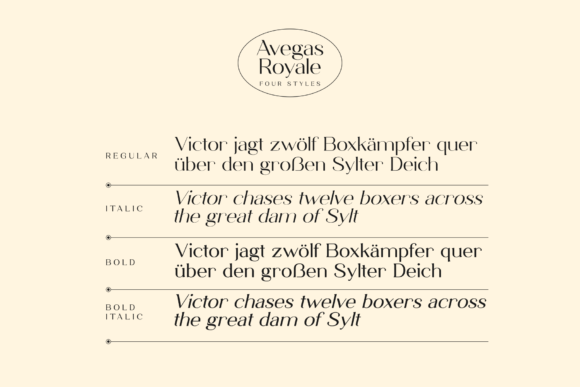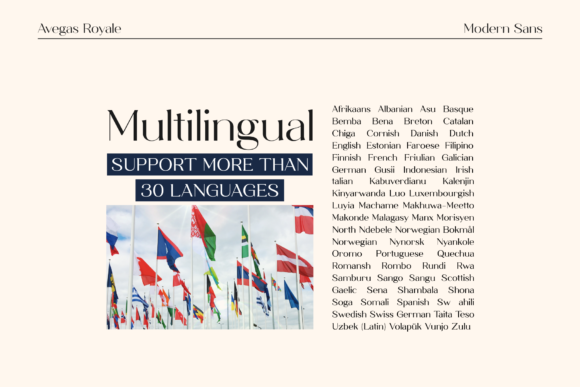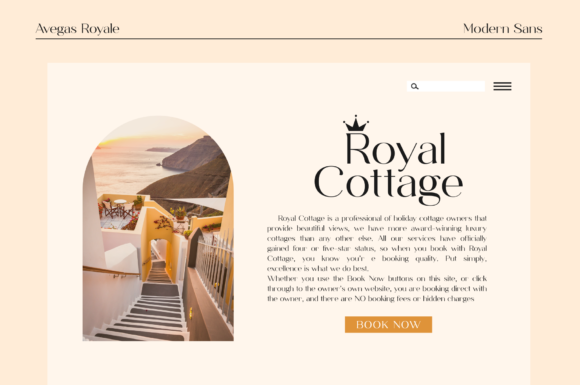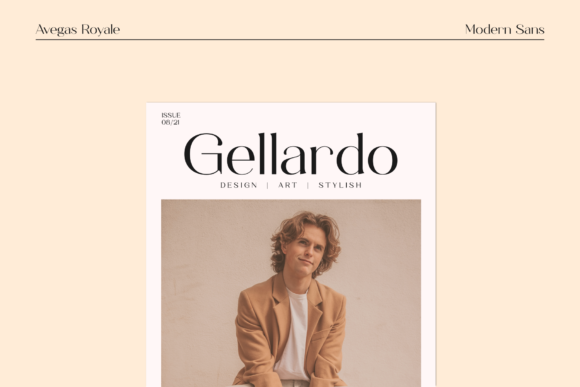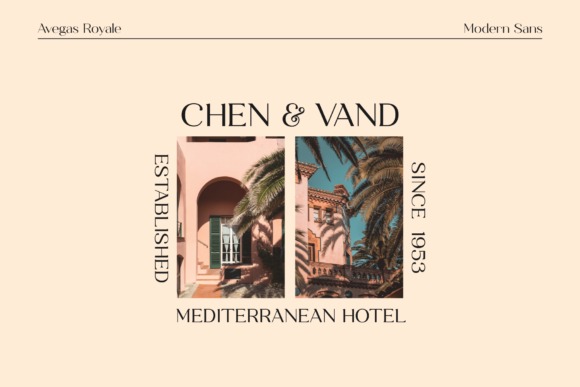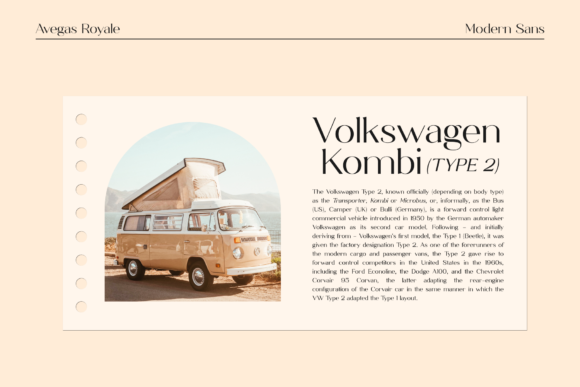
Introducing Avegas Royale Font: Elevate Your Designs with Elegance and Modernity
Avegas Royale is an elegant and modern serif font that has been masterfully designed to become a true favorite among designers and crafters. With its sophisticated and refined aesthetic, this font has the potential to bring each of your creative ideas to the highest level. In this article, we’ll dive into the world of Avegas Royale, exploring its features, benefits, and uses, and provide you with valuable insights on how to make the most of this exceptional font.
The Design Behind Avegas Royale
Avegas Royale is a meticulously crafted serif font that exudes elegance and sophistication. Its modern design is characterized by clean lines, precise curves, and a balanced structure, making it perfect for a wide range of applications, from luxury branding and advertising to packaging and digital media. The font’s creator has paid close attention to even the smallest details, ensuring that Avegas Royale is not only visually stunning but also highly legible and versatile.
Key Features of Avegas Royale Font
- Elegant and Modern Design: Avegas Royale boasts a sleek and contemporary aesthetic that will elevate your designs and give them a professional touch.
- Serif Font: The font’s serif design adds a touch of sophistication and classic elegance, making it perfect for luxury brands and high-end applications.
- High Legibility: Avegas Royale is designed to be highly legible, even at small font sizes, ensuring that your message is conveyed clearly and effectively.
- Versatile: This font is suitable for a wide range of applications, including headings, titles, and body text.
Benefits of Using Avegas Royale Font
So, why choose Avegas Royale for your design projects? Here are just a few benefits of using this exceptional font:
- Stand Out from the Crowd: Avegas Royale is a unique and distinctive font that will help your designs stand out in a crowded marketplace.
- Convey Luxury and Sophistication: The font’s elegant and modern design is perfect for luxury brands and high-end applications, conveying a sense of sophistication and refinement.
- Enhance Readability: Avegas Royale’s high legibility ensures that your message is conveyed clearly and effectively, making it perfect for body text and other applications where readability is key.
- Save Time and Effort: With Avegas Royale, you can create professional-looking designs quickly and easily, saving you time and effort.
Using Avegas Royale in Your Designs
Avegas Royale is a versatile font that can be used in a wide range of design applications, including:
- Branding and Advertising: Use Avegas Royale to create stunning logos, advertisements, and marketing materials that convey luxury and sophistication.
- Packaging Design: Elevate your packaging designs with Avegas Royale, adding a touch of elegance and refinement to your products.
- Digital Media: Use Avegas Royale in your digital media projects, including social media graphics, website headers, and more.
- Print Design: Avegas Royale is perfect for print design applications, including brochures, flyers, and business cards.
Avegas Royale is an exceptional font that offers a unique combination of elegance, modernity, and versatility. With its sophisticated design, high legibility, and ease of use, this font is perfect for designers and crafters looking to elevate their designs and convey luxury and sophistication. Whether you’re working on a branding project, packaging design, or digital media application, Avegas Royale is sure to become a true favorite in your design arsenal.